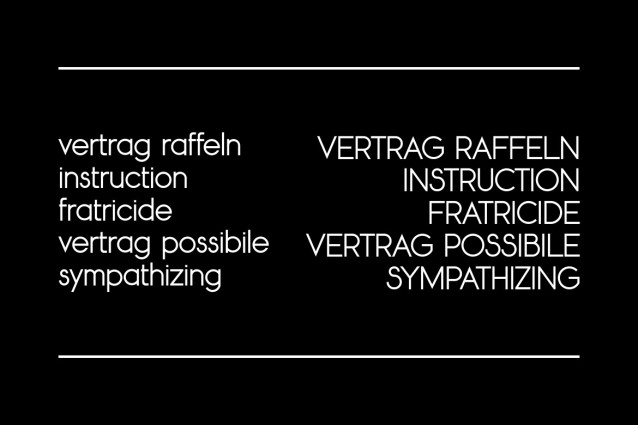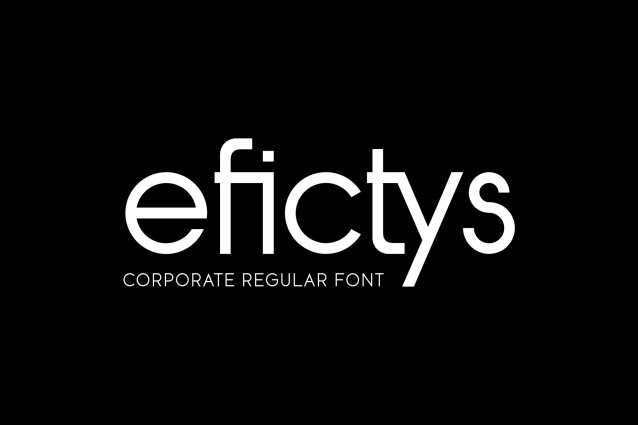
Efictys Font
Efictys Font is a bold and authentic display font. The font is suitable for all branding projects such as logos, esports, etc. It looks exceptional in a wide range of contexts.